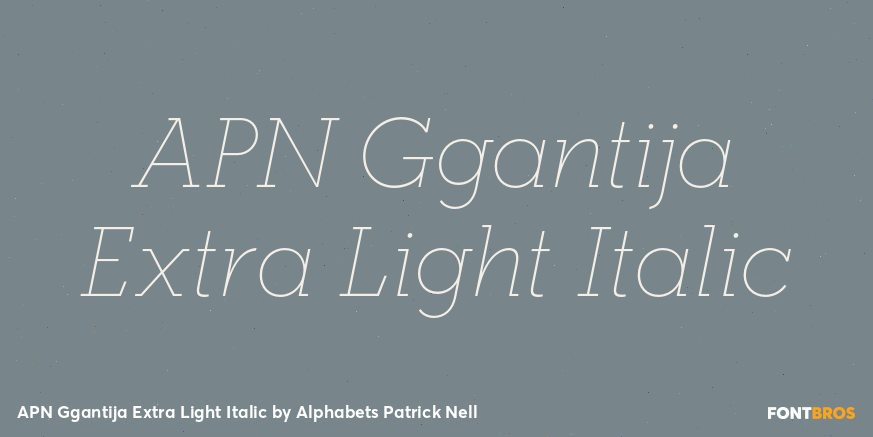
APN Ggantija
Font Family by Alphabets Patrick Nell
APN Ggantija is a neo-modernist slab serif typeface—geometric and monolinear, but with humanist traits and true italics. Its generous x-height and open apertures ensure excellent legibility in extended reading, while asserting a confident and distinctive voice in display settings.